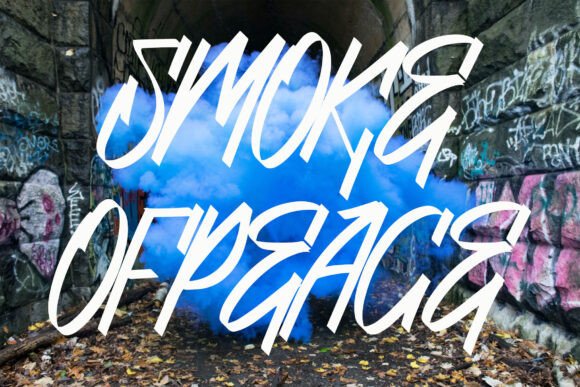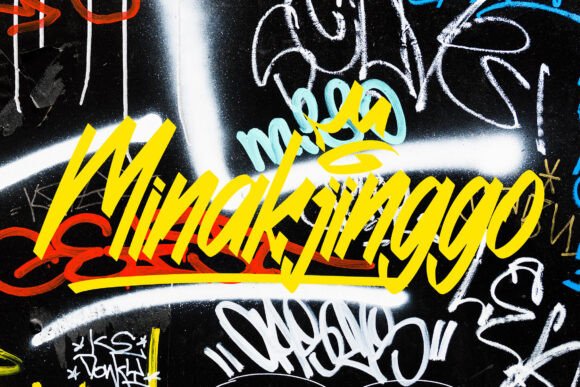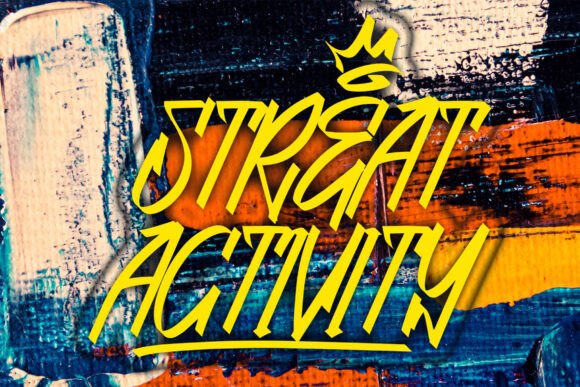
Introduction to Mickle Swash Font
Remember that moment when you stumbled upon the perfect font that instantly elevated your design project? For many designers, that ‘aha’ moment is what sets their creative juices flowing and inspires them to push the boundaries of visual storytelling. For those seeking a font that truly stands out, we’re excited to introduce you to the Mickle Swash Font – a bold handbrush-style font that’s about to become your go-to design resource.
What sets Mickle Swash Font apart is its unique character shapes and dynamic, artistic strokes that make any product’s visual appeal shine. Whether you’re working on a logo, branding, poster, or creative project, this font is sure to bring an extra layer of sophistication and style. With its high-quality design and transparent background, you can trust that your project will look its absolute best.
Key Features of Mickle Swash Font
- High-quality design: Mickle Swash Font is a beautifully crafted font perfect for creative projects, offering a unique and elegant look.
- Transparent background: This font has a transparent background, making it ideal for use on various backgrounds and design elements.
- Large character set: Mickle Swash Font includes a comprehensive character set, including uppercase and lowercase letters, numbers, and special characters.
- Resolution-independent: This font is designed to be resolution-independent, ensuring it looks great at any resolution or size.
- Perfect for hand-lettering: Mickle Swash Font’s swash-style design makes it ideal for hand-lettering and adding a personal touch to creative projects.
Honest Review: Mickle Swash Font
As a designer, I’m always on the lookout for unique and high-quality design resources to elevate my creative projects. Recently, I stumbled upon the Mickle Swash Font, and I’m excited to share my honest review.
- ✨ The font’s swash design elements add a touch of elegance and sophistication to any project.
- ✨ The font’s high quality is evident in its crisp lines and smooth curves, making it perfect for digital and print designs.
- ⚠️ The font may not be suitable for projects that require a transparent background, as the swash design elements can be quite dense and may not show well on transparent backgrounds.
- ⚠️ The font’s availability is limited to a few weights, which may not provide enough versatility for some designers.
Overall, I’m impressed with the Mickle Swash Font’s potential to add a touch of creativity to any design project. While it has some limitations, its high quality and elegant design make it a valuable addition to any designer’s toolkit.
Mickle Swash Font